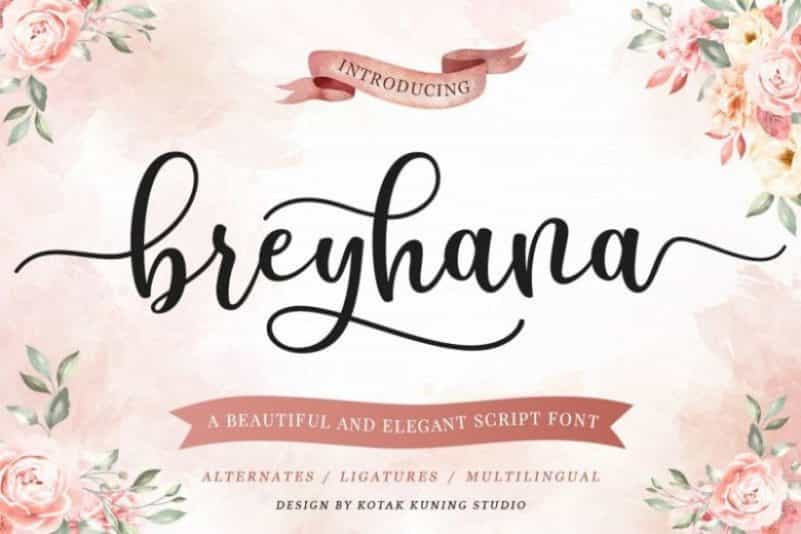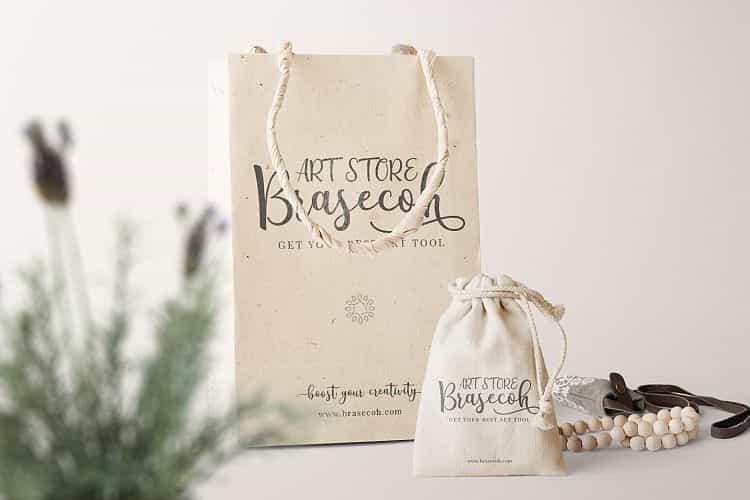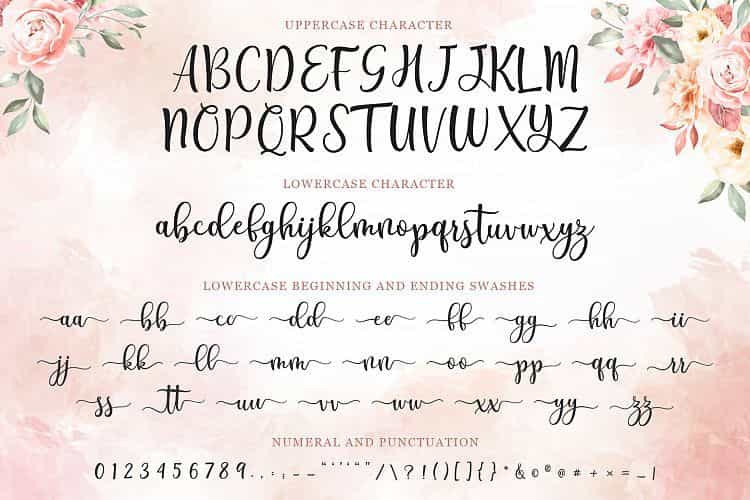
Breyhana is a handwritten script with a natural and stylish flow curve. There is a great number of natural looking ligatures in the OpenType feature of this font – which makes the font look as close to the natural handwriting as possible. Ideally, this collection of scripts would be suitable for branding a person.